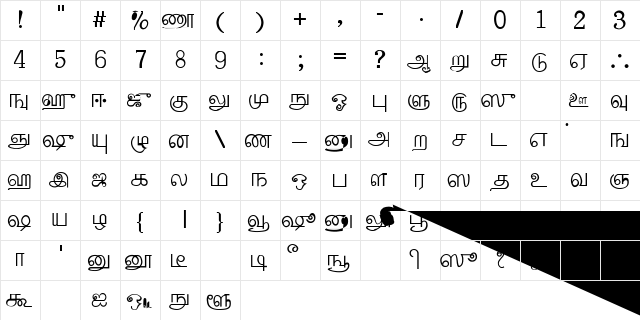
Palladam Normal Free Font
Palladam Normal
Palladam Family
Design Context for Palladam
Palladam is a composed and adaptable typeface that performs quietly and consistently across a wide range of design contexts.